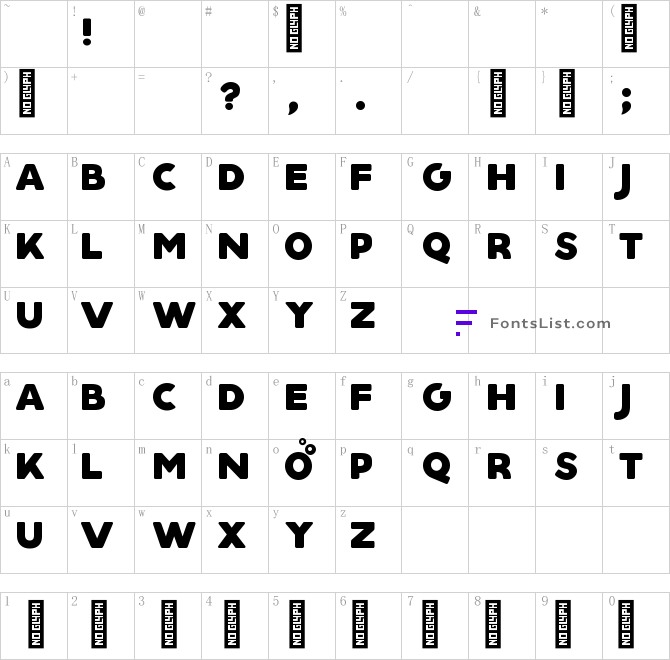
- Font Name:Aquino Demo
Aquino-Demo.ttf is a very beautiful artistic font, Aquino-Demo.ttf is widely used in the design and printing of various books and pictures,Aquino-Demo.ttf has a strong visual impact,Aquino-Demo.ttf is a commonly used font in newspapers, magazines and books, and is used in posters, e-commerce Poster design, store design, logo design, font design and other fields.Aquino-Demo.